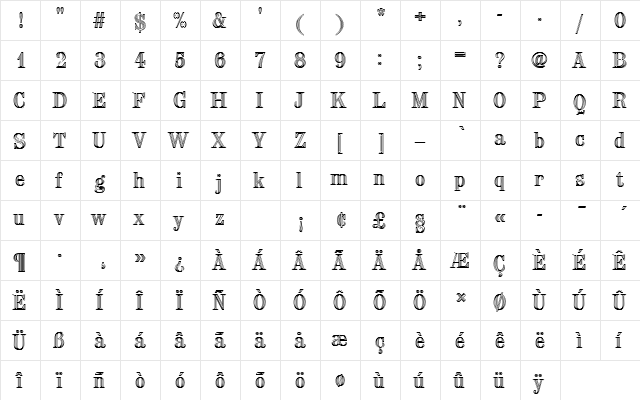
ChiselDIn1 Regular Font Preview
ChiselDIn1 Regular
ChiselDIn1 Regular Font Details
Design Context for ChiselDIn1 Typeface
ChiselDIn1 takes a measured approach to typography — its balanced proportions and neutral character make it a reliable workhorse for both digital and print work.